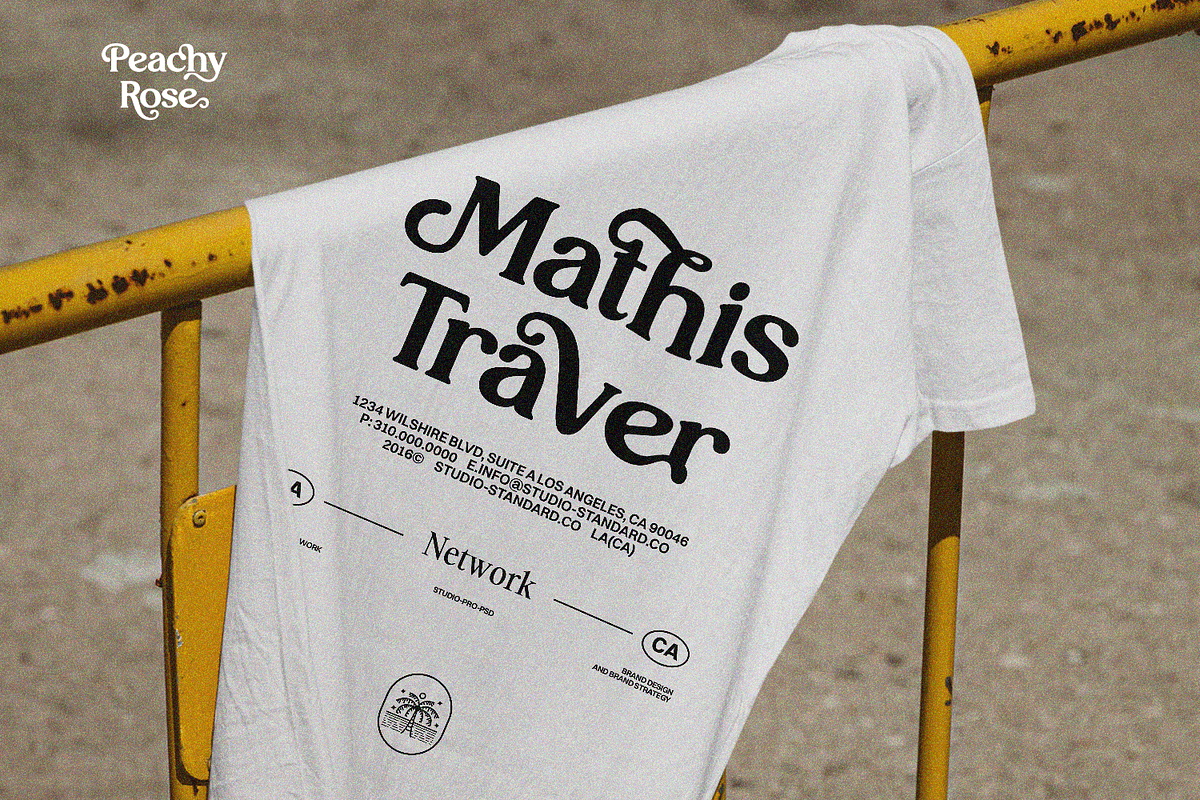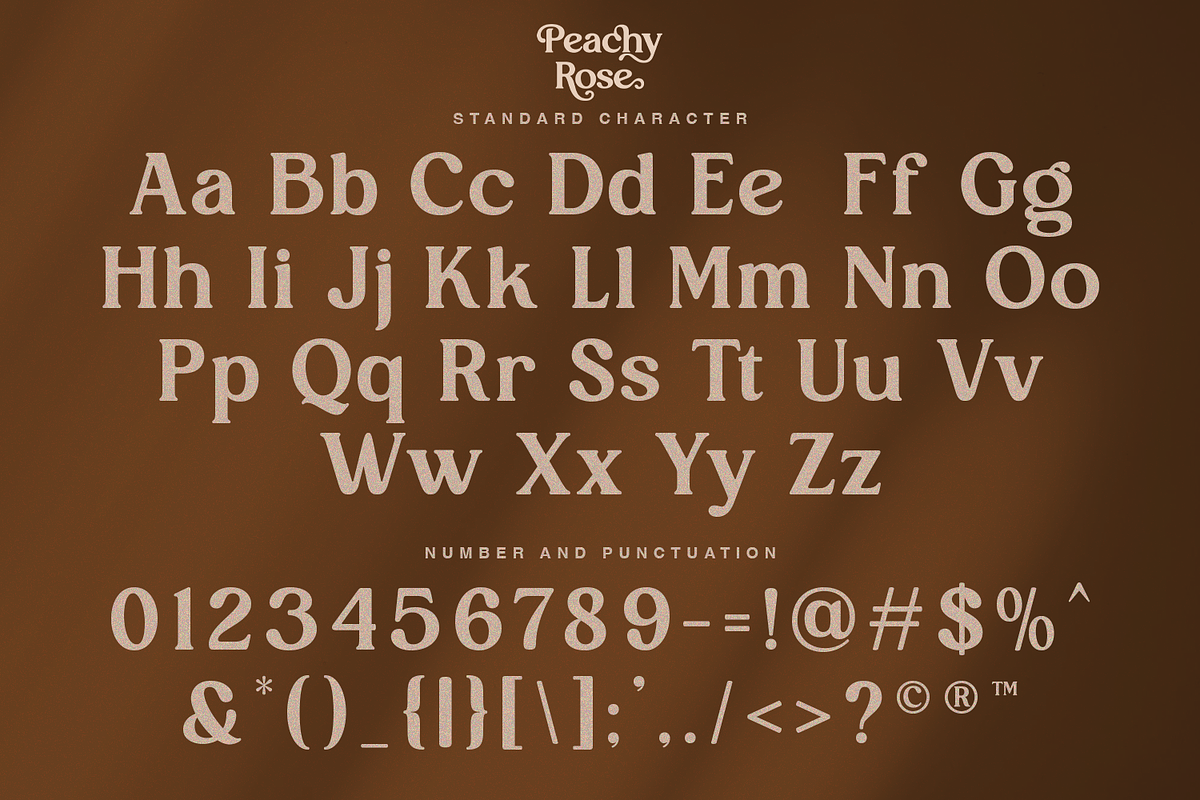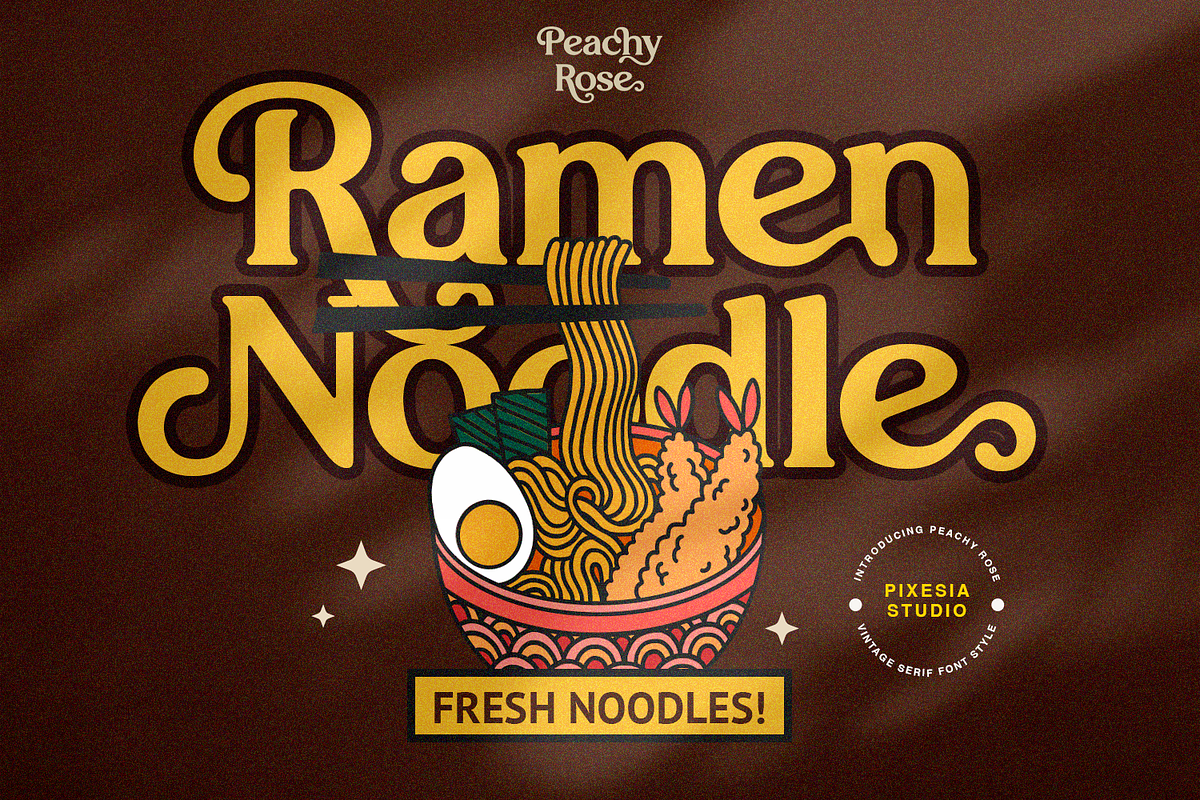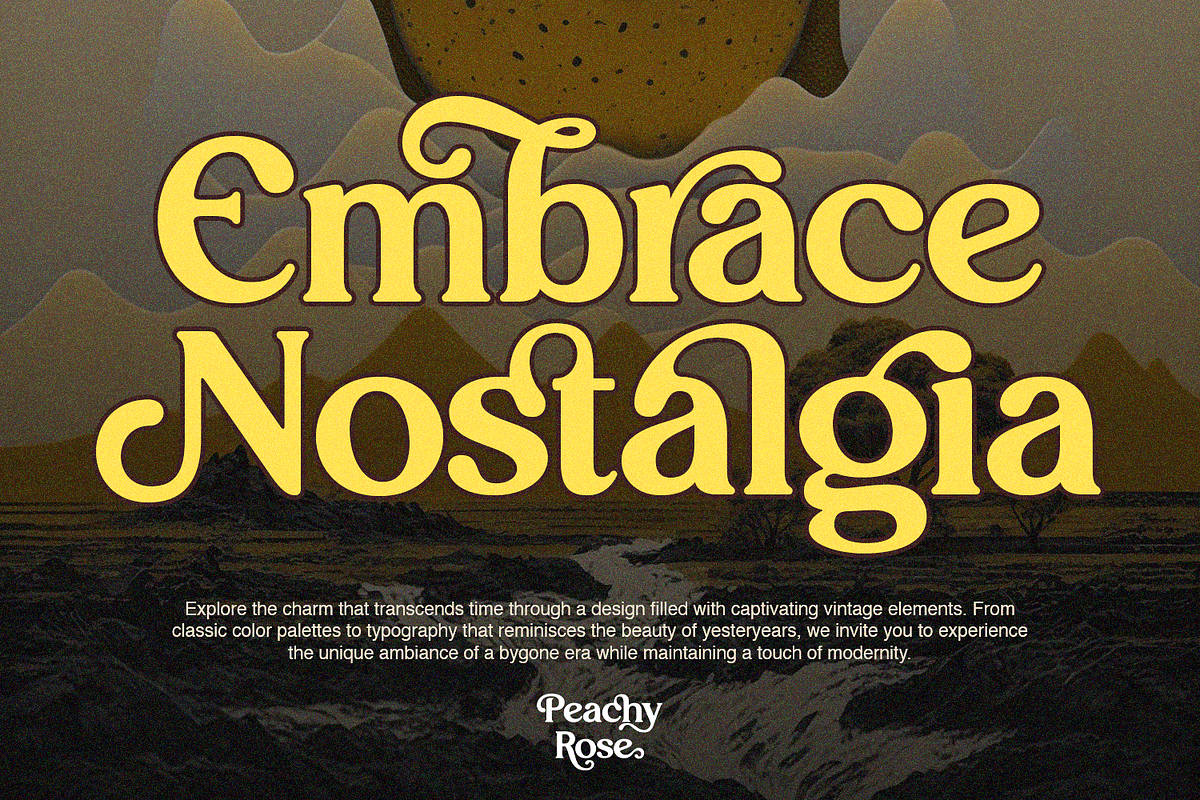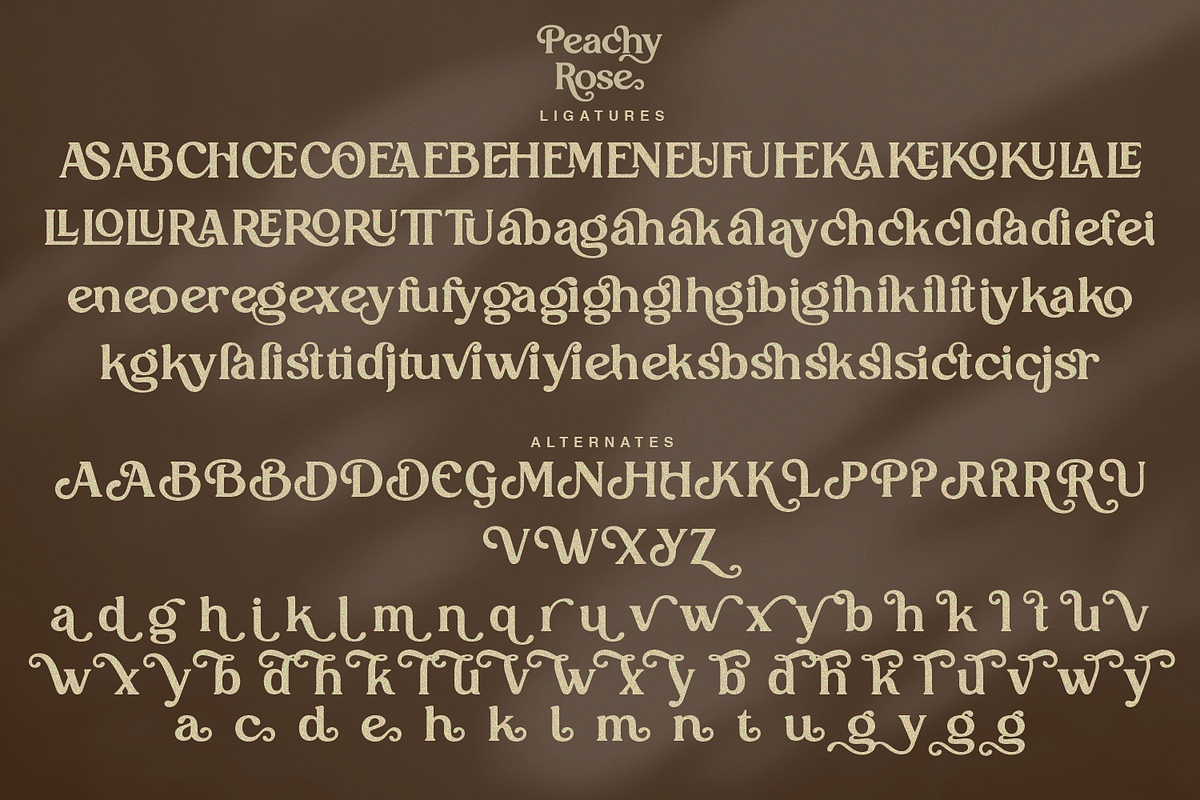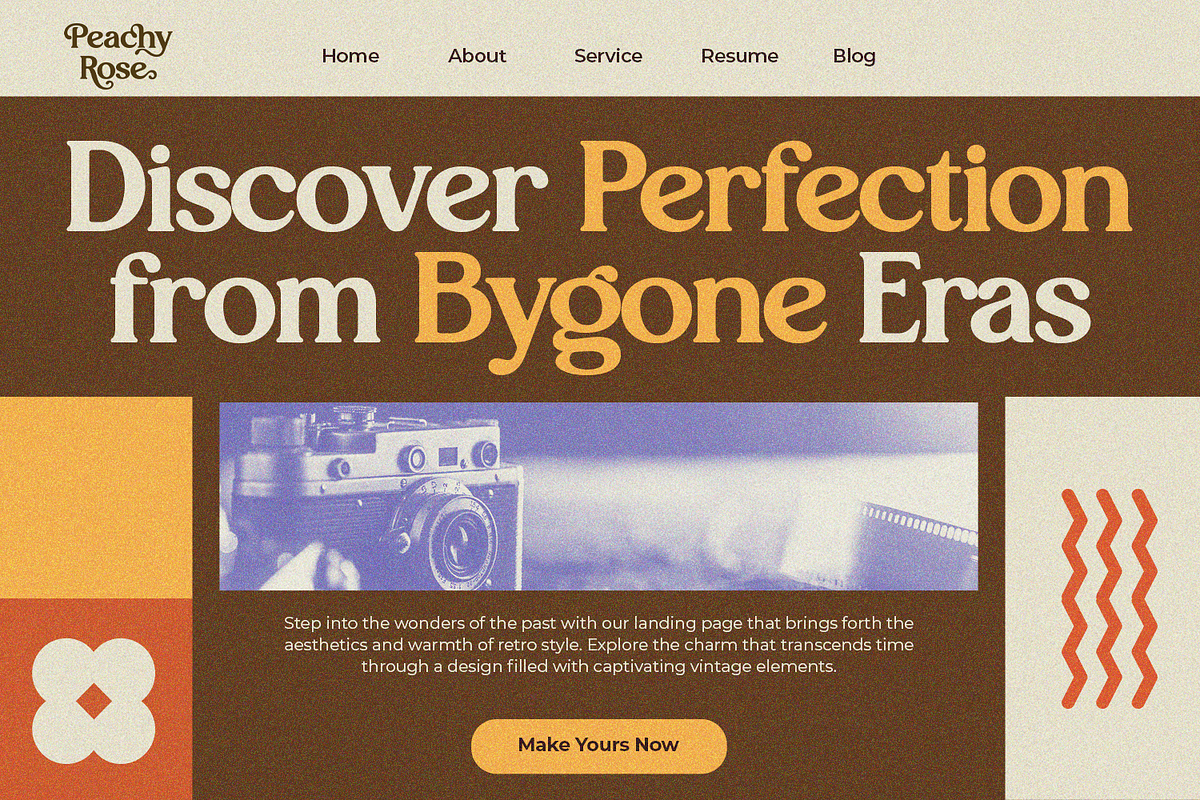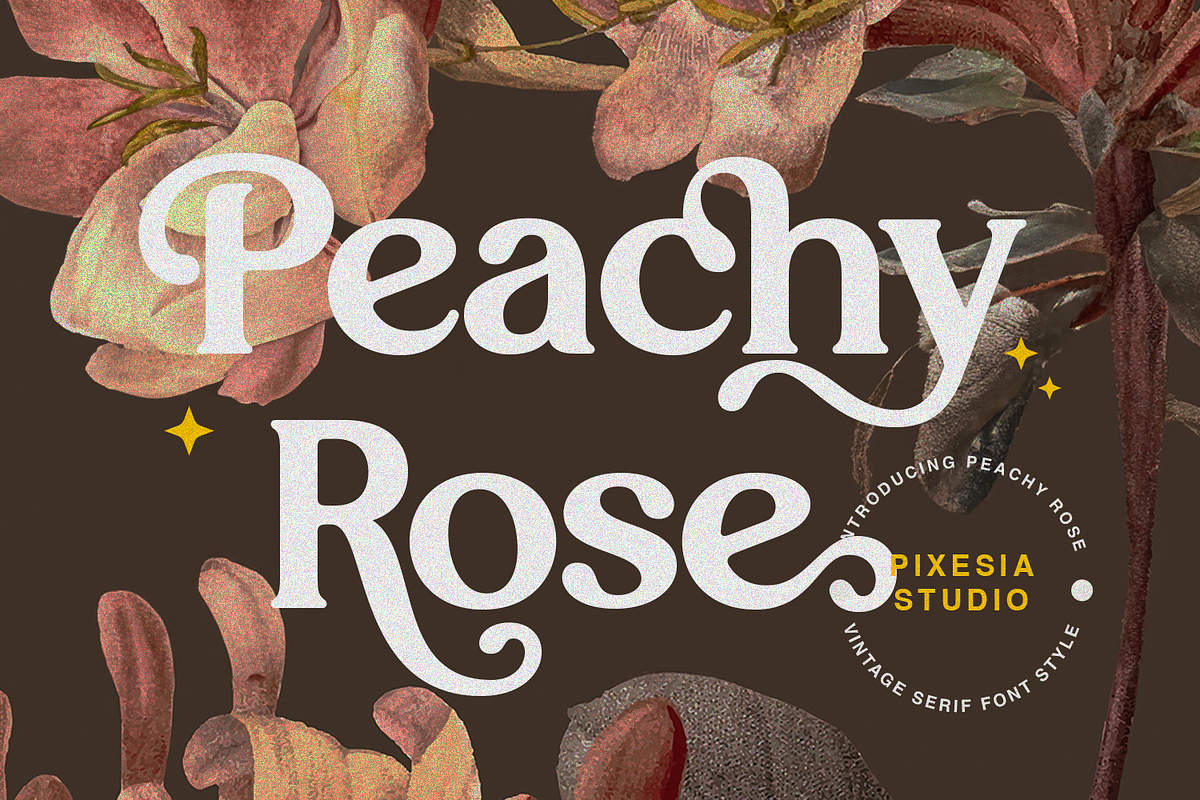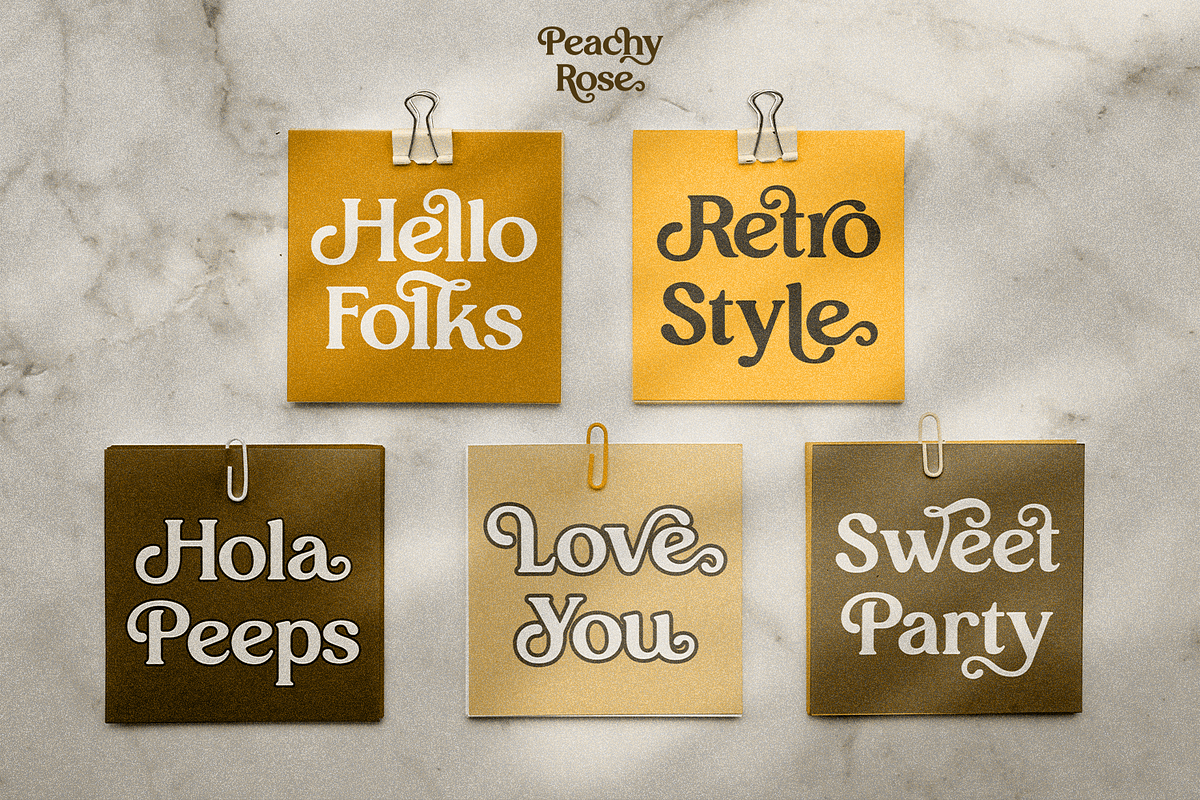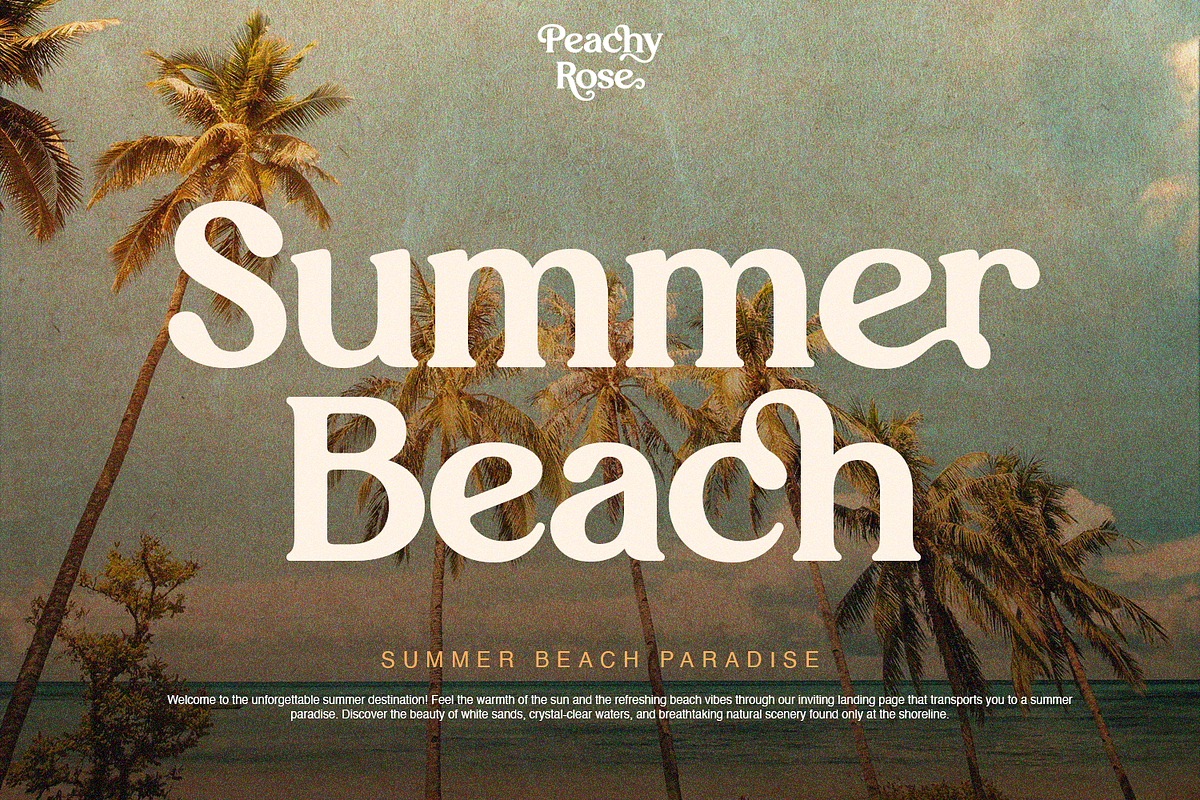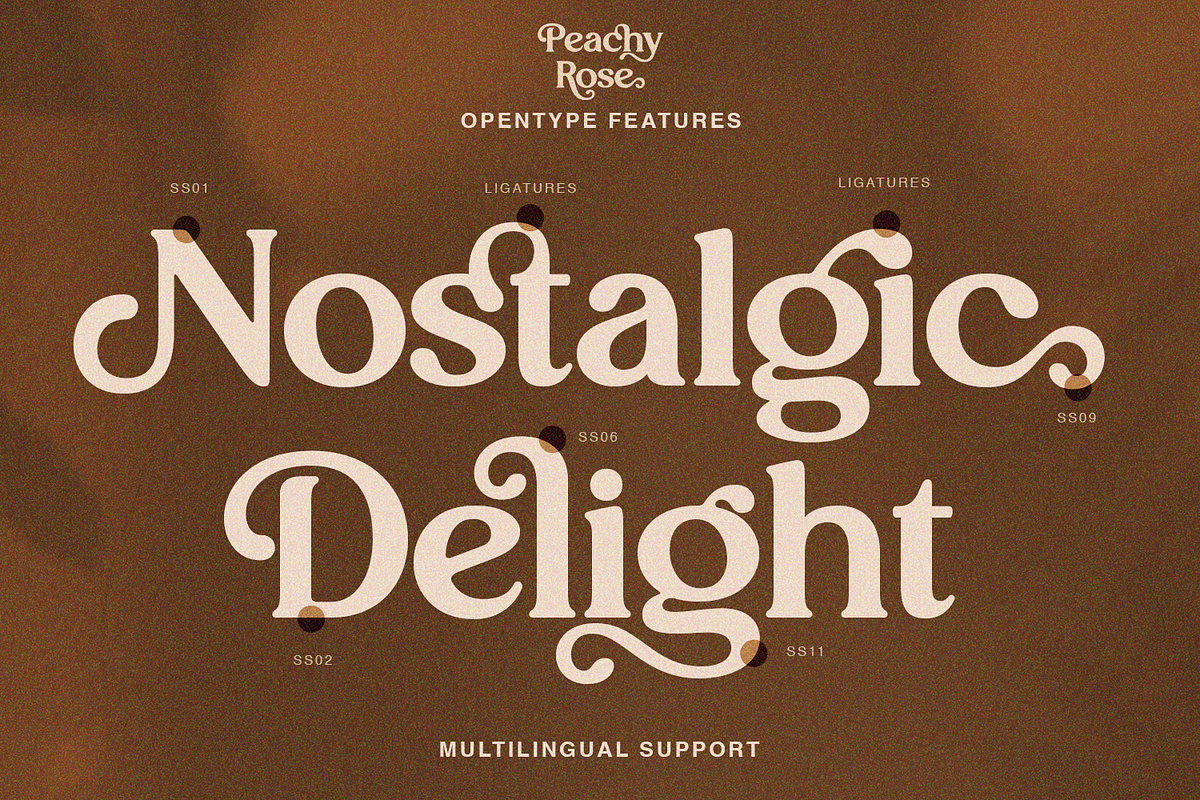
Peachy Rose - Bold Vintage Serif
Introducing Peachy Rose - Bold Vintage Serif Font
Peachy Rose, a bold vintage serif font that will brings a bold and timeless aesthetic to your designs. The sharp serifs and unique character designs evoke a sense of nostalgia, making Peachy Rose a great choice for vintage-inspired designs.
Peachy Rose is perfectly suited for branding, logotype, social media posts, headlines, logo, greating card, advertising, product packaging, label, photography, watermark, t-shirt, website design, invitation, stationery and any projects seeking a touch of elegance and sophistication.
- Multilingual Support for 89 languages including Afrikaans, Albanian, Basque, Catalan, Danish, Dutch, English, Estonian, Faroese, Filipino, Finnish, French, Galician, German, Icelandic, Indonesian, Irish, Italian, Malay, Norwegian Bokmål, Portuguese, Spanish, Swahili, Swedish, Zulu